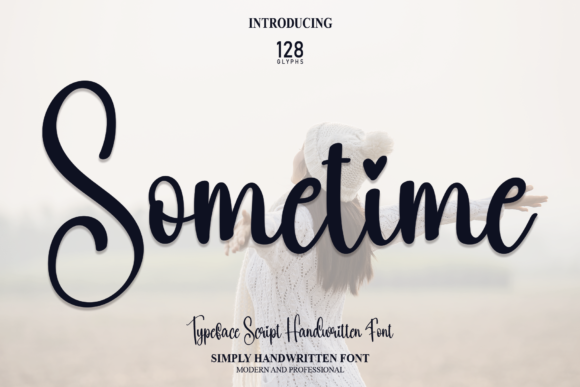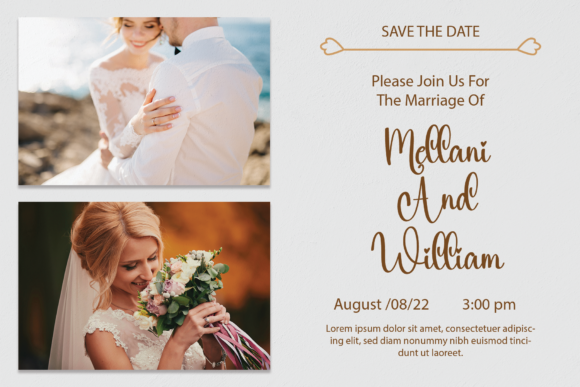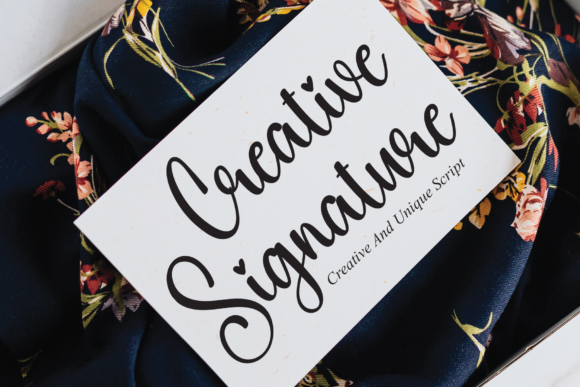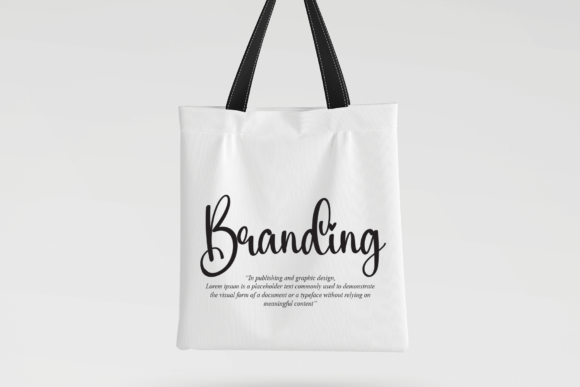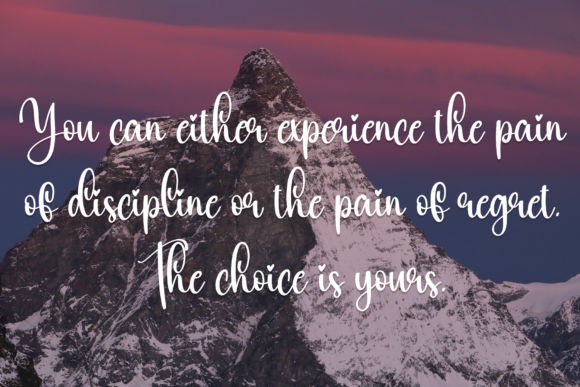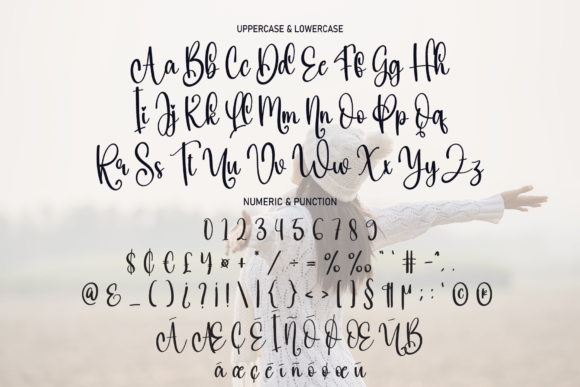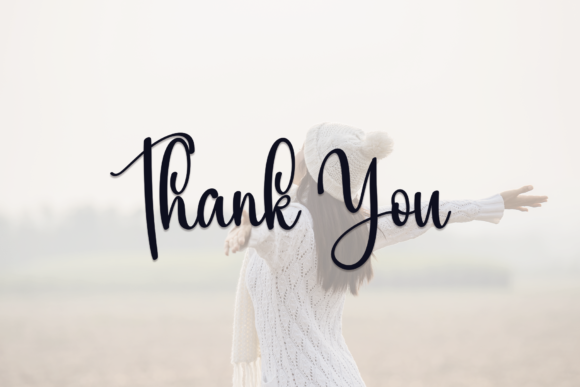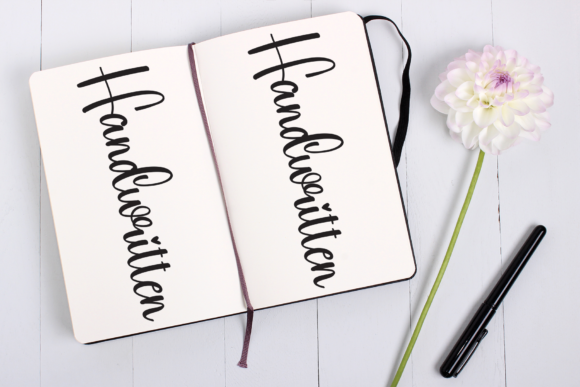
Sometime Font
About Sometime Font
“Introducing ‘Sometime’, a superb handwritten font that is set to revolutionize the way you perceive typography. With its elegant and curvy lines, ‘Sometime’ is not just a font, it’s a design statement. It’s a testament to the beauty of handwritten art, seamlessly blending classic charm with modern design aesthetics.
‘Sometime’ is the perfect font choice for a wide array of applications. Its unique style makes it an ideal fit for product packaging, instantly catching the eye and making any product stand out on the shelves. It adds a touch of sophistication and elegance to branding projects, helping to create a strong and memorable brand identity.
But the versatility of ‘Sometime’ doesn’t stop there. It’s also perfect for magazine covers, adding a touch of personal flair and uniqueness that sets the publication apart. In the digital world, ‘Sometime’ shines on social media, helping posts and content to stand out in a crowded online space.
One of the standout applications of ‘Sometime’ is in wedding invitations and stationery. The font adds a romantic and personal touch, making any wedding feel even more special. It’s also perfect for expressing words above the background, adding depth and dimension to any design.
‘Sometime’ is more than just a font. It’s a tool for expression, a way to make your work stand out, and a means of adding a personal touch to any project. Whether you’re a designer looking for the perfect font for your next project, a business owner looking to elevate your branding, or anyone in need of a unique and stylish font, ‘Sometime’ is the perfect choice.
In the world of typography, ‘Sometime’ is a game-changer. It’s a font that doesn’t just blend into the background – it stands out, makes a statement, and leaves a lasting impression. So why wait? It’s time to make your mark with ‘Sometime’.”